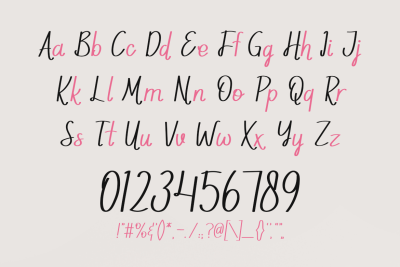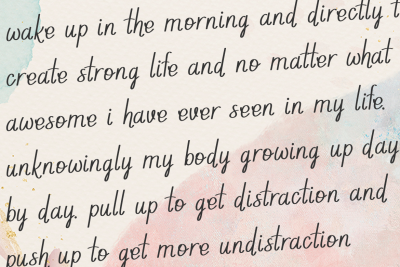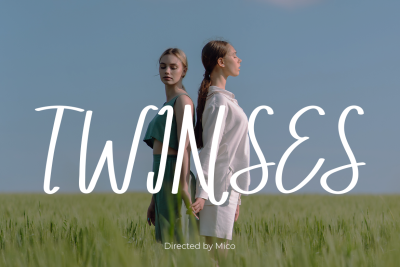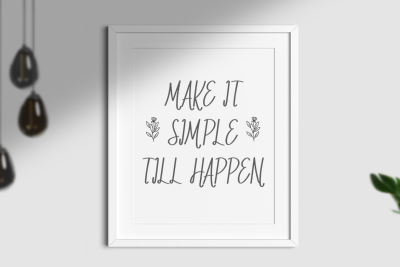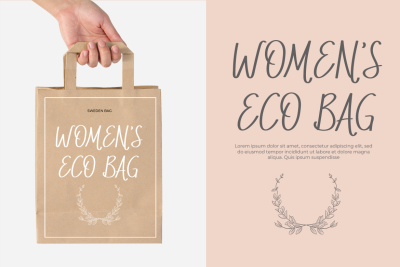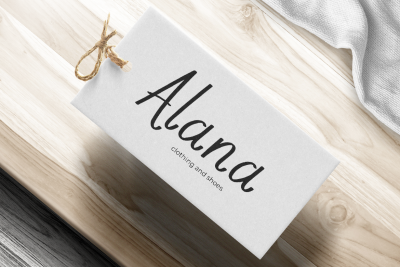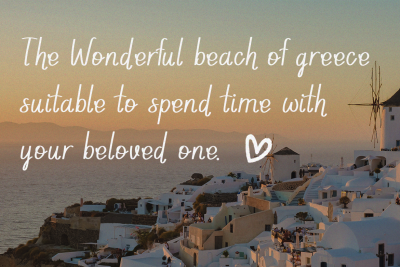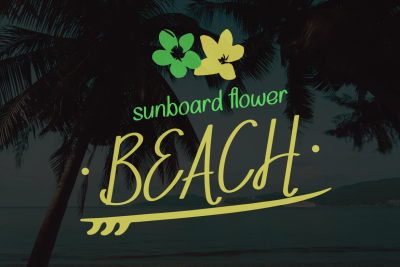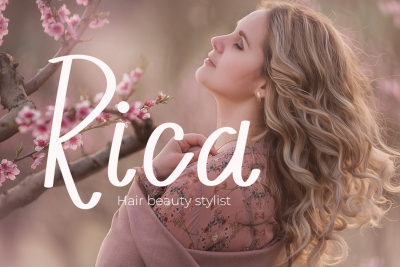
Handwriting Font Marcos is a beautiful typeface that perfectly captures the essence of handwritten elegance. Its smooth curves and natural imperfections create a sense of authenticity that makes every design feel personal and heartfelt. Additionally, the font offers a modern yet timeless style that is versatile enough for both formal and creative projects. Whether youโre designing wedding invitations, social media posts, or branding materials, this font adds a unique touch of charm and sophistication. Its balance between clean strokes and artistic flair ensures that it remains legible while exuding warmth and personality.
Moreover, Handwriting Font Marcos features carefully crafted details that mimic real handwriting, giving it a natural flow thatโs hard to replicate. The fontโs versatility makes it suitable for a wide range of uses, from personal DIY crafts to professional branding projects. Its elegant yet approachable style allows you to add character and individuality to any design. This font is ideal for anyone seeking to convey emotion and creativity through their work.
Handwriting Font Marcos Who Is It Suitable For?
Handwriting Font Marcos is a perfect choice for event planners and designers who want to create elegant and memorable materials. Wedding planners, for instance, can use it for invitations, menus, and thank-you cards, where its delicate strokes enhance the romantic atmosphere. Similarly, lifestyle brands and entrepreneurs will appreciate its ability to elevate logos, packaging, and marketing campaigns with sophistication.
This font also works wonderfully for content creators and social media managers. Its stylish yet easy-to-read design makes it ideal for Instagram posts, Pinterest graphics, and blog headers. It seamlessly blends into visual content, adding personality to quotes, announcements, or product showcases.
For educators and parents, Handwriting Font Marcos is a delightful choice for creating certificates, labels, or personalized crafts. Itโs also an excellent option for hobbyists who want to enhance DIY projects, greeting cards, or photo albums. Its adaptability ensures that it complements any creative idea, no matter how big or small.
In short, Handwriting Font Marcos caters to professionals and hobbyists alike. Whether youโre designing for business, celebration, or personal expression, this font ensures that your work stands out with charm and character.